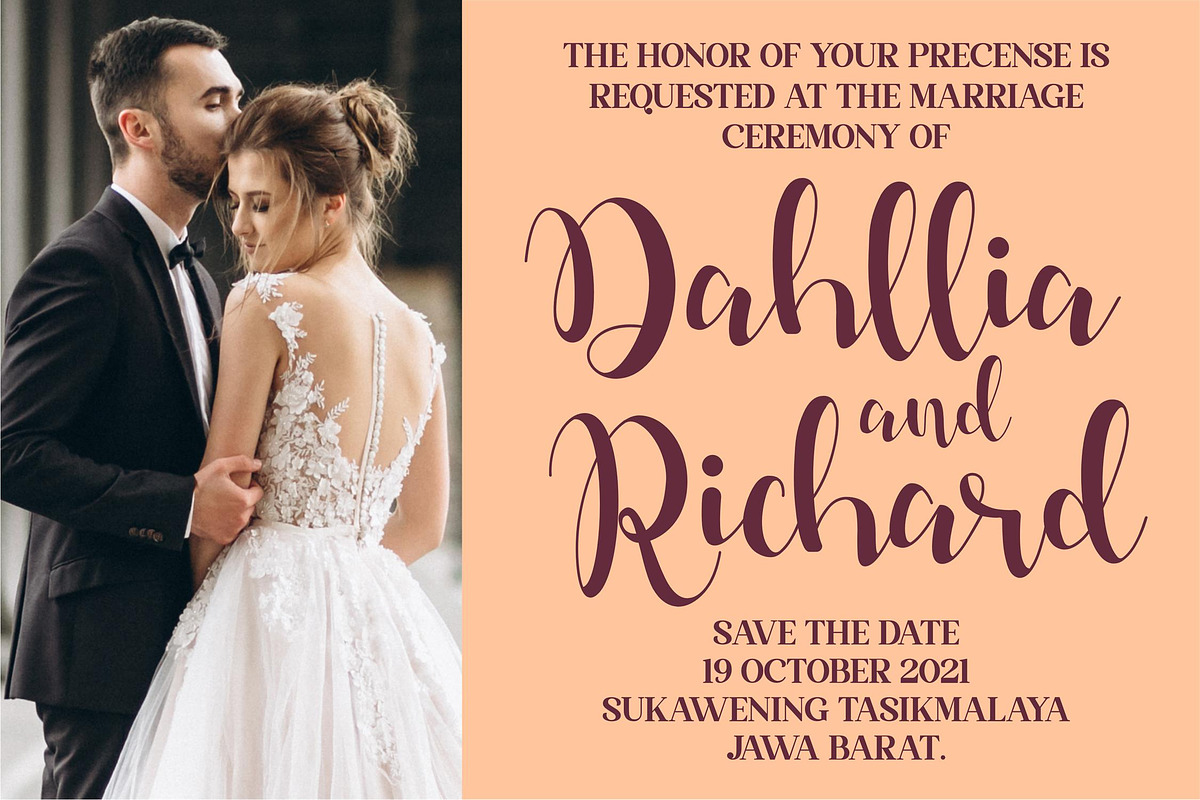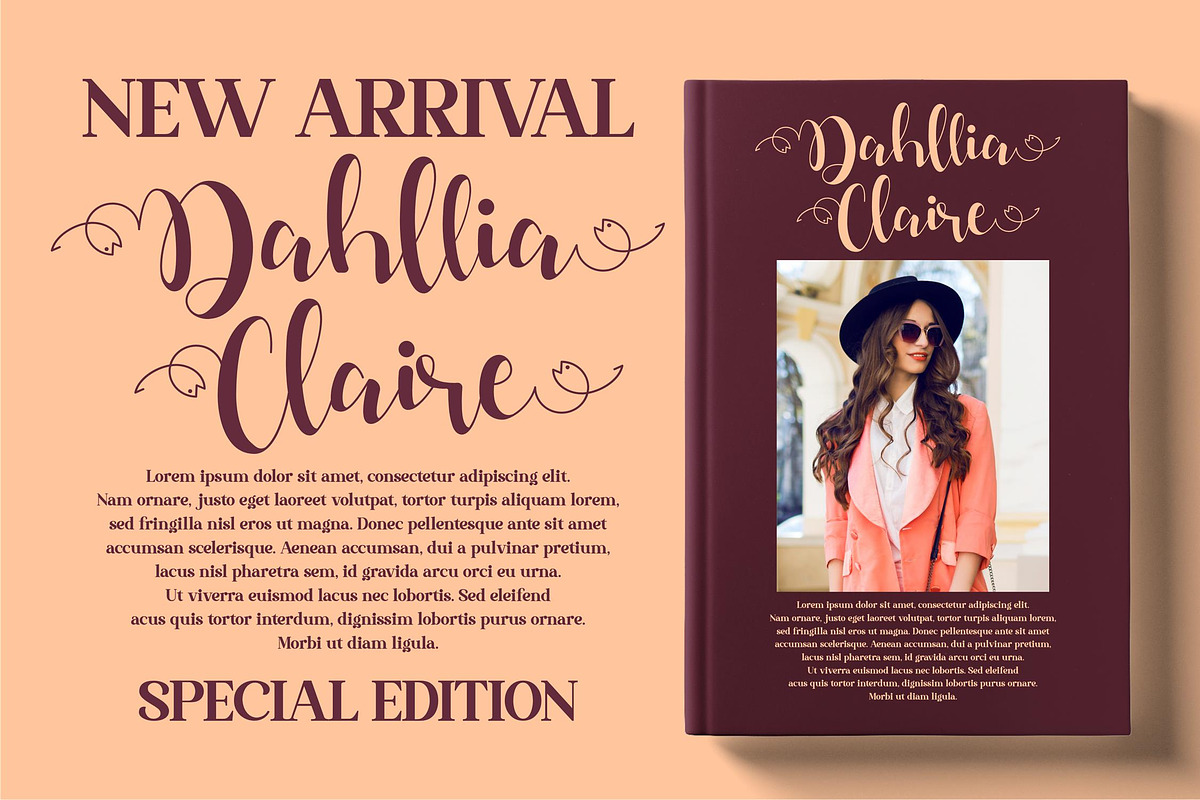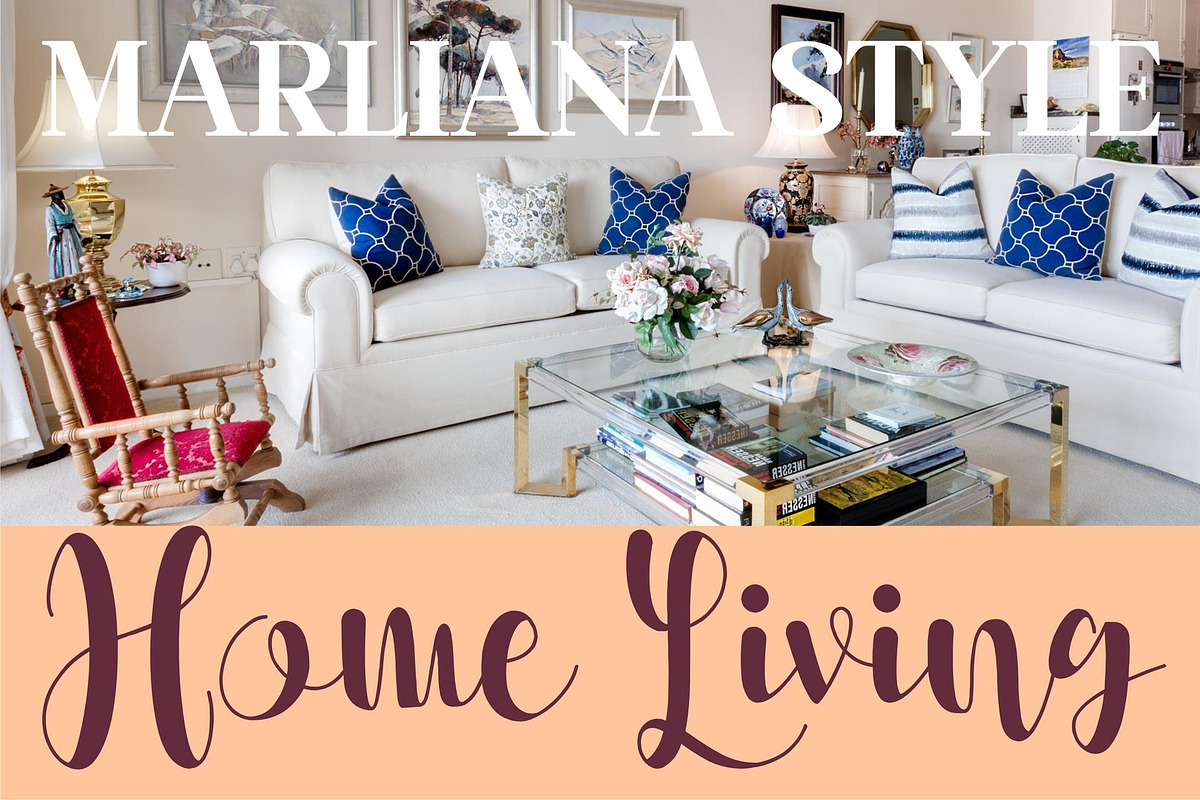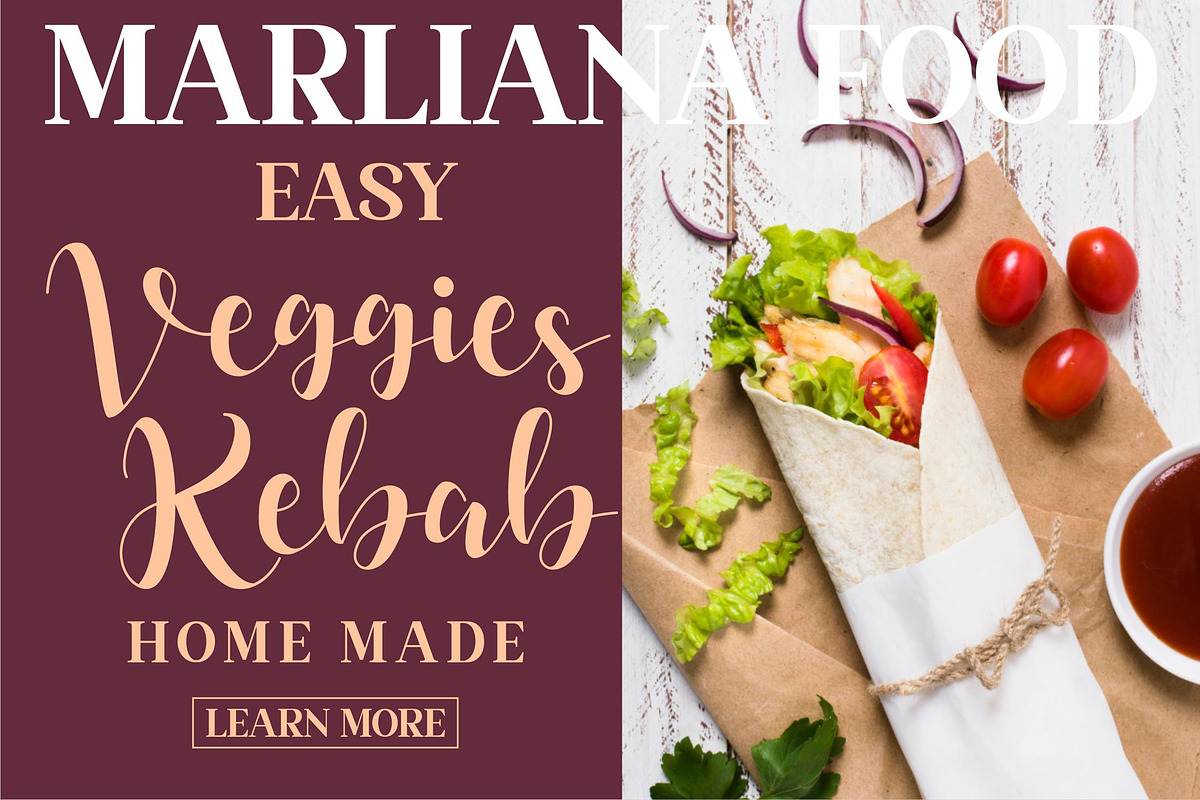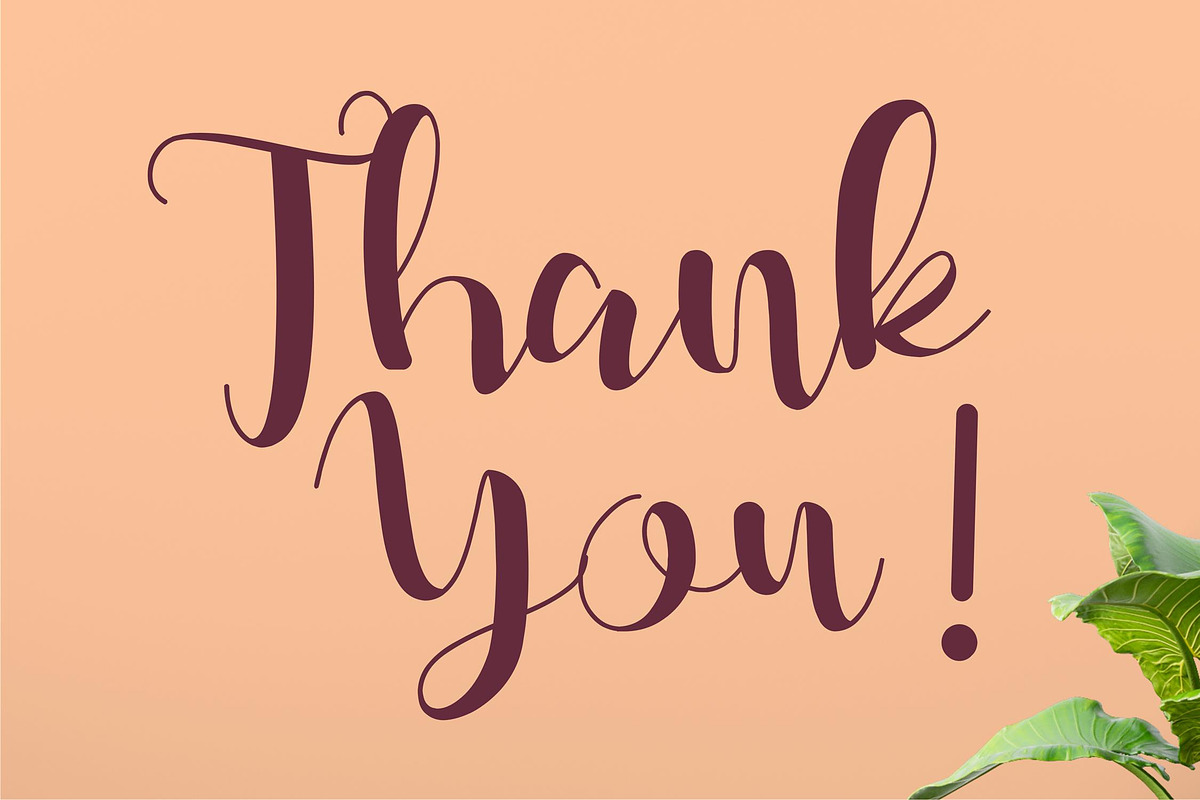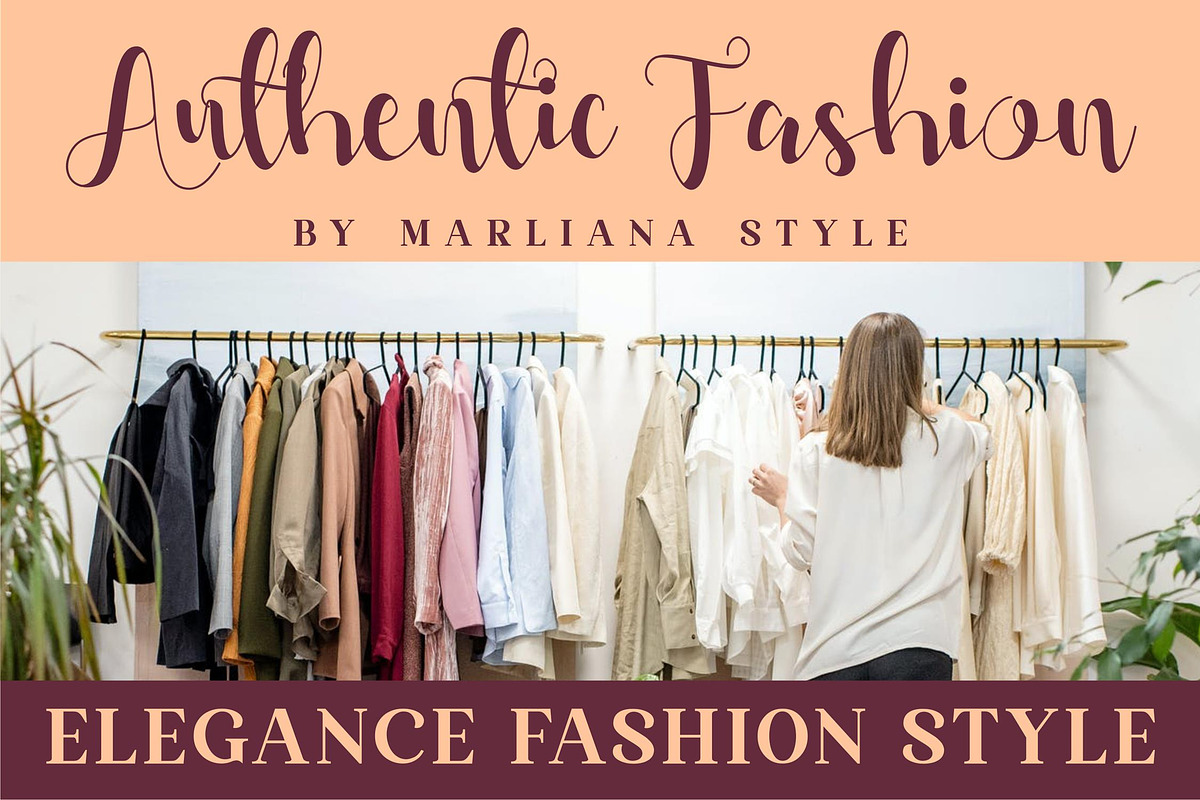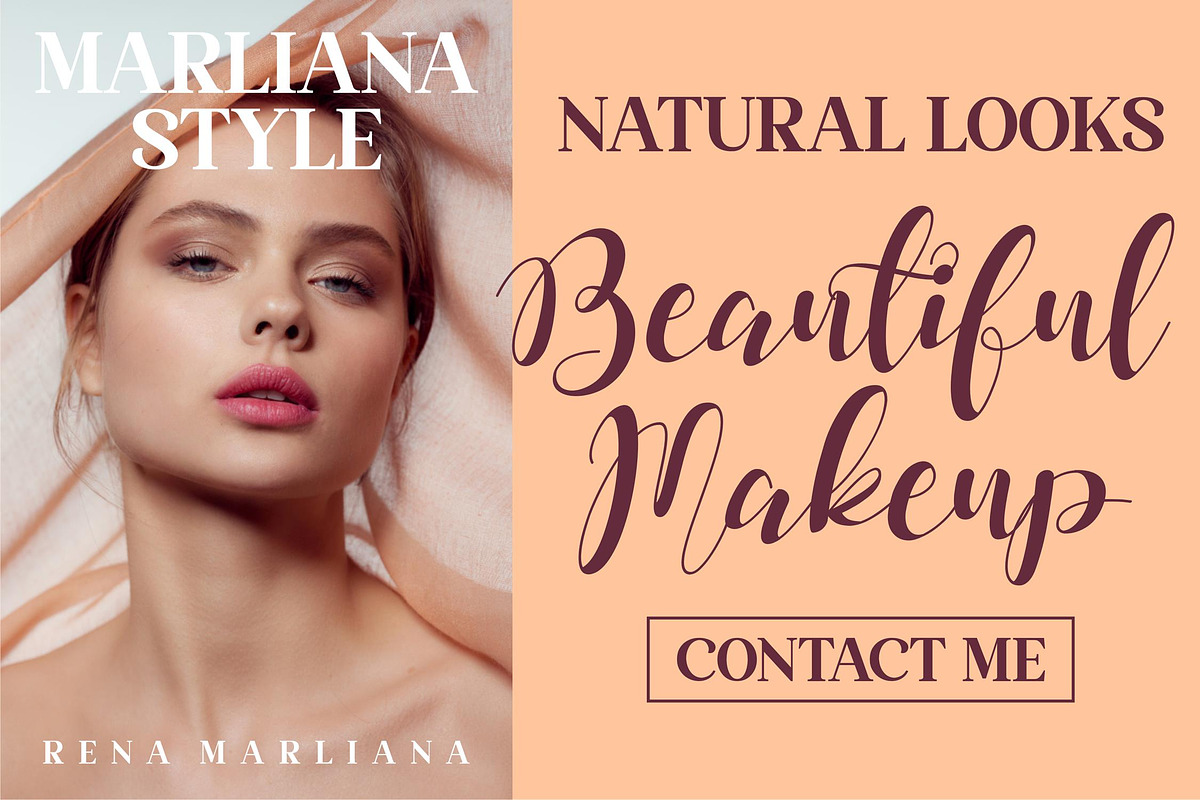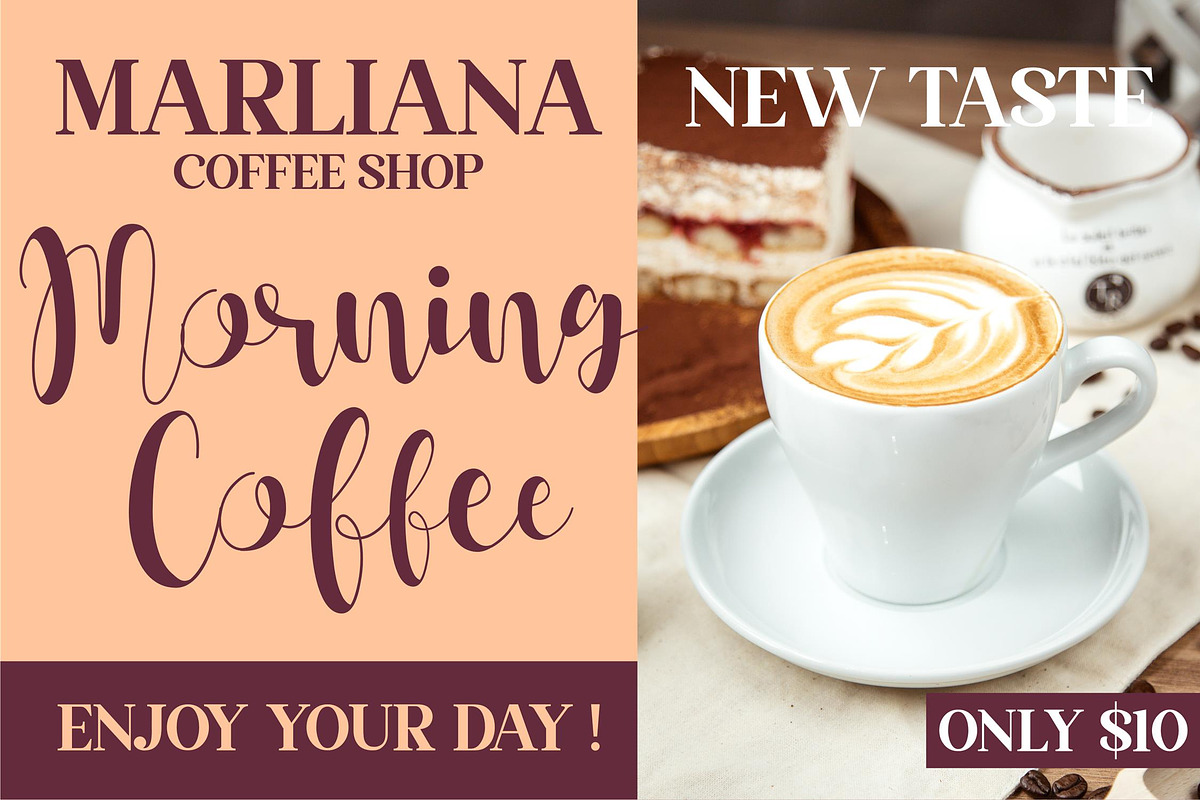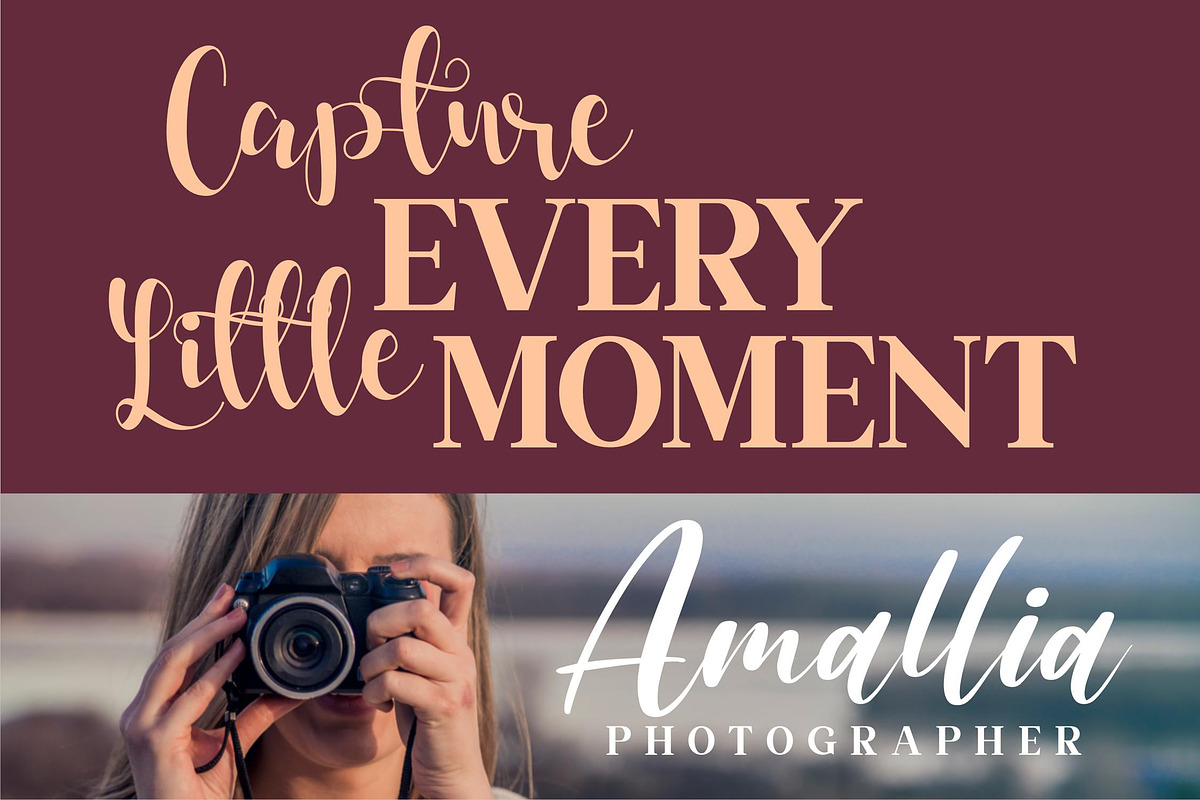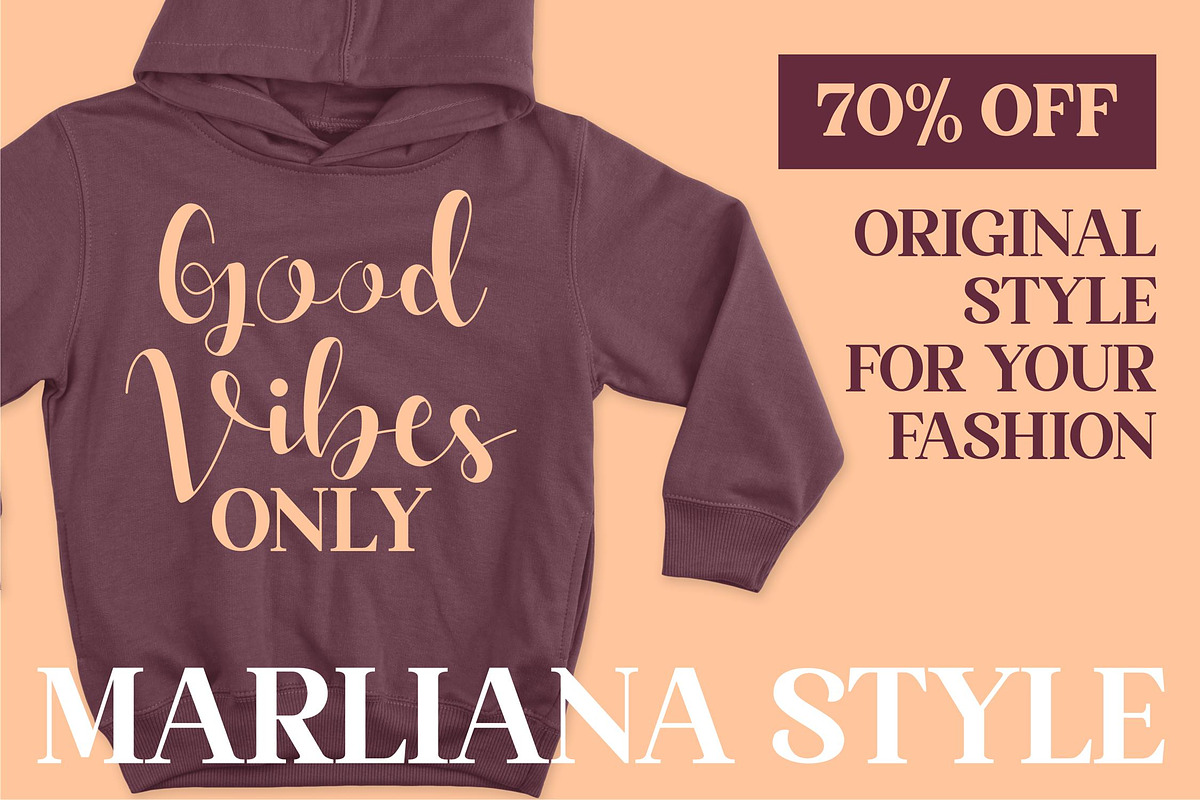
Dahllia Claire Script LS
Hi ladies & gentlemen, this is one of our fonts suitable to complement your digital and printed creative products. This font is perfect for posters, social media posts, branding, personal projects, etc.